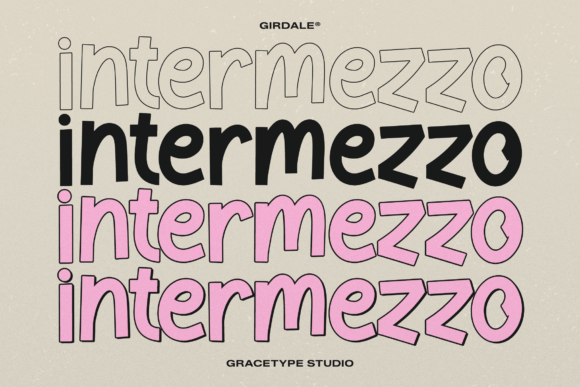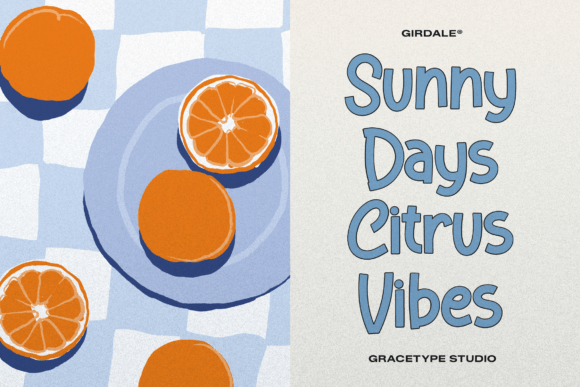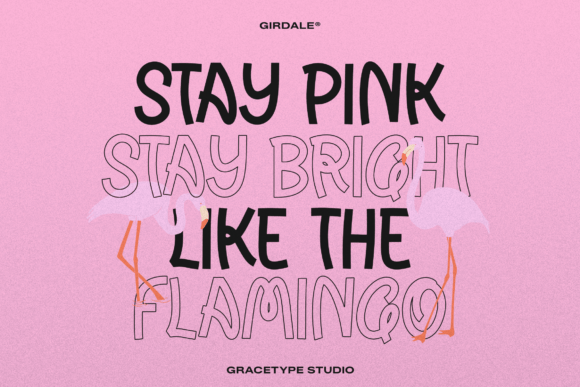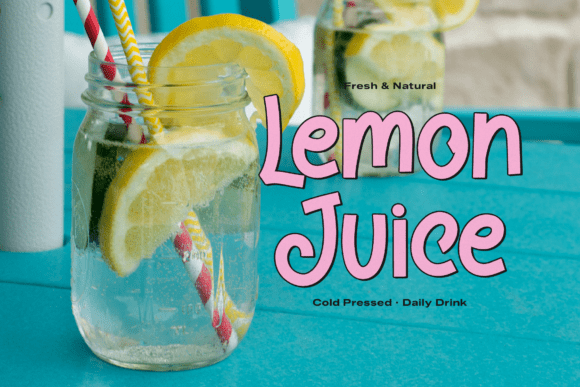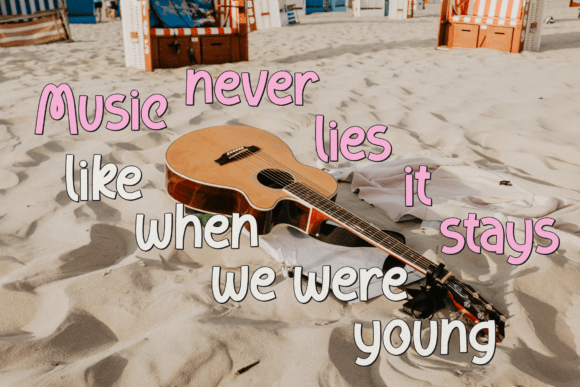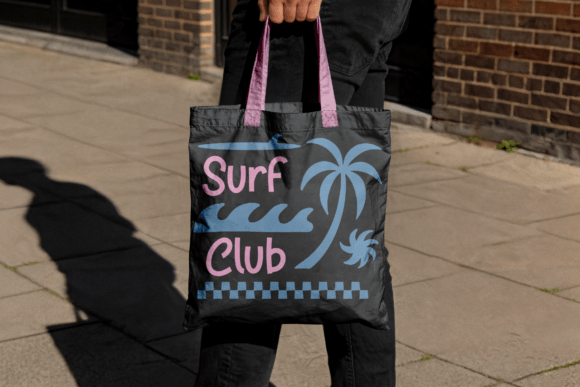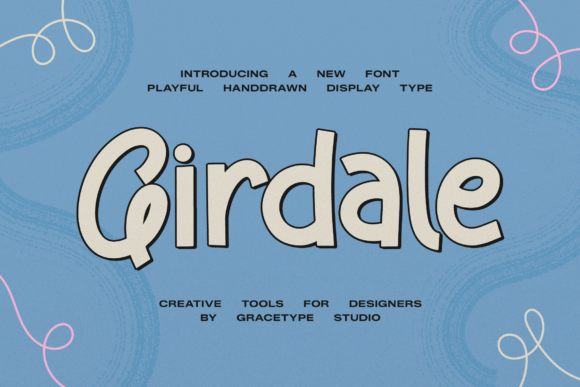
Infuse Your Projects with Wonder: Discover the Charm of Girdale Font
Are you looking for a font that can add a touch of playfulness and whimsy to your designs? Look no further than Girdale, a delightful hand-drawn display font that captures the carefree spirit of a sketchbook doodle. With its soft, chunky letterforms and quirky loops, Girdale is the perfect choice for crafty projects that require a dash of personality.
The Characteristics of Girdale Font
Girdale font is uniquely characterized by its cheerful-casual soul, which is reflected in its design. The font features:
- Soft, chunky letterforms that give it a friendly and approachable feel
- Quirky loops that add a touch of whimsy and playfulness
- A subtle 3D shadow effect that adds a pop of dimension and visual interest
- A bouncy rhythm that makes it perfect for titles and headings
- A friendly weight that makes it easy to read and understand
Perfect for Crafty Projects
Girdale font is the premier choice for a variety of crafty projects, including:
- Independent craft brewery labels: Add a touch of personality to your beer labels with Girdale’s playful and whimsical design
- Children’s book titles: Bring your children’s book to life with Girdale’s fun and engaging font
- Boutique bakery branding: Add a touch of whimsy to your bakery’s branding with Girdale’s soft and chunky letterforms
- Vibrant “maker-aesthetic” social media headers: Make your social media headers stand out with Girdale’s bouncy rhythm and friendly weight
Why Choose Girdale Font?
There are many reasons why Girdale font stands out from the crowd:
- Unique and playful design that adds a touch of personality to your projects
- Highly versatile and adaptable to a variety of design applications
- Easy to read and understand, making it perfect for titles and headings
- Instantly recognizable and memorable, making it perfect for branding and marketing
Tips for Using Girdale Font
Here are some tips for getting the most out of Girdale font:
- Use it as a display font to add a touch of personality to your titles and headings
- Pair it with a clean and simple font to create visual interest and contrast
- Experiment with different colors and textures to add depth and dimension to your designs
- Don’t be afraid to get creative and try out new and innovative design ideas
In conclusion, Girdale font is a unique and playful hand-drawn display font that is perfect for crafty projects that require a dash of personality. With its soft, chunky letterforms, quirky loops, and subtle 3D shadow effect, Girdale is sure to infuse your projects with a sense of wonder and whimsy. Whether you’re designing labels for an independent craft brewery, titles for a children’s book, or branding for a boutique bakery, Girdale font is the premier choice for adding a touch of playfulness and personality to your designs.